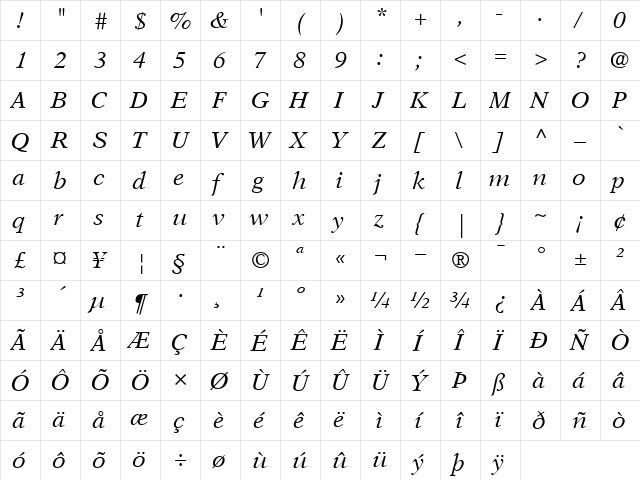
NewAster RomanItalic
Design Context for NewAster Typeface
NewAster offers clean, dependable letterforms without strong stylistic allegiance, making it a practical choice for designers who need flexibility. The dynamic lean of this cut emphasises speed and emphasis in any layout.
Pro Tip: Use NewAster for emphasis, pull quotes, and subheadings where its slanted energy can add rhythm to the layout.